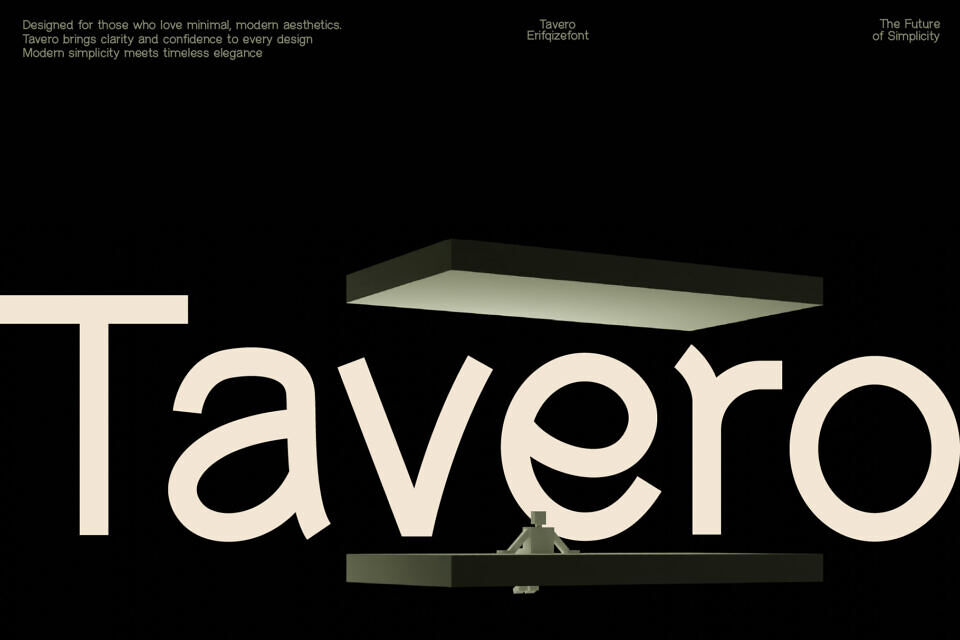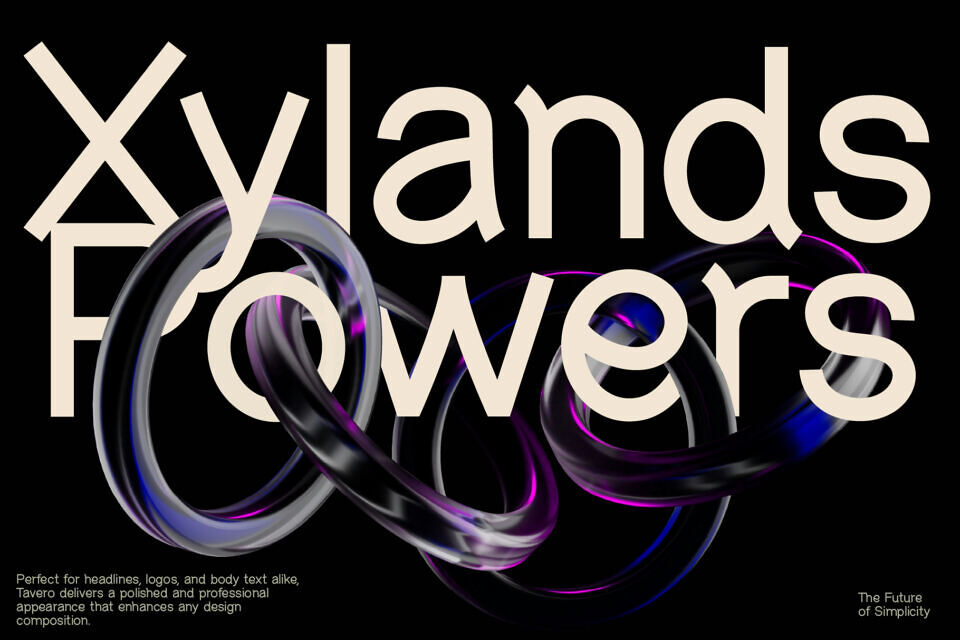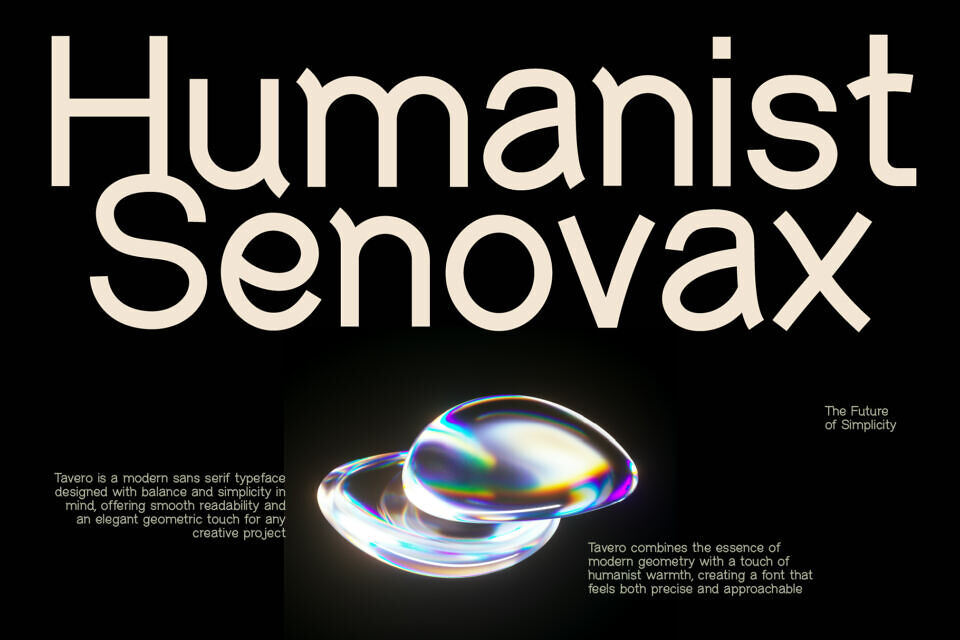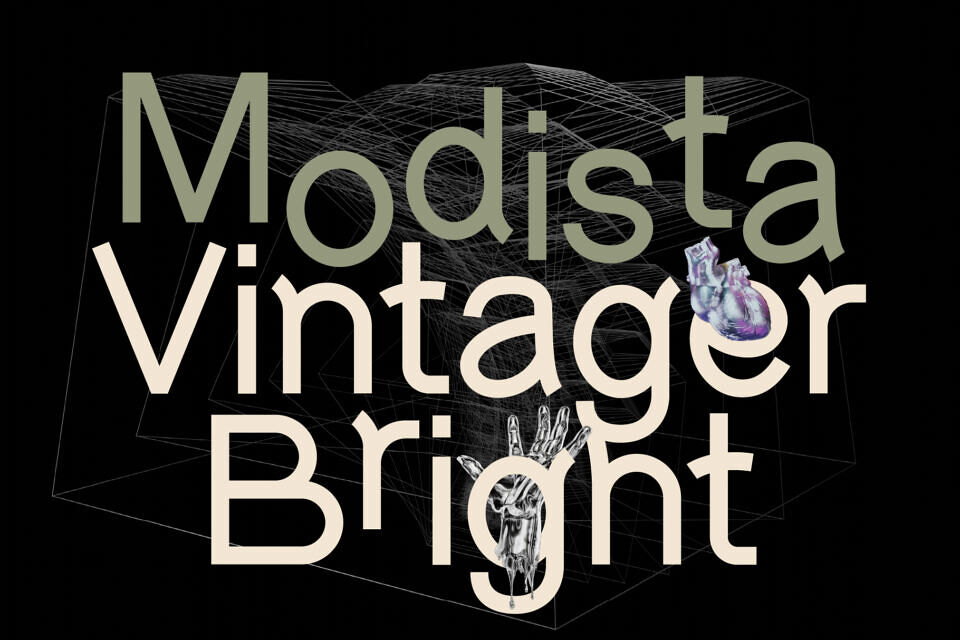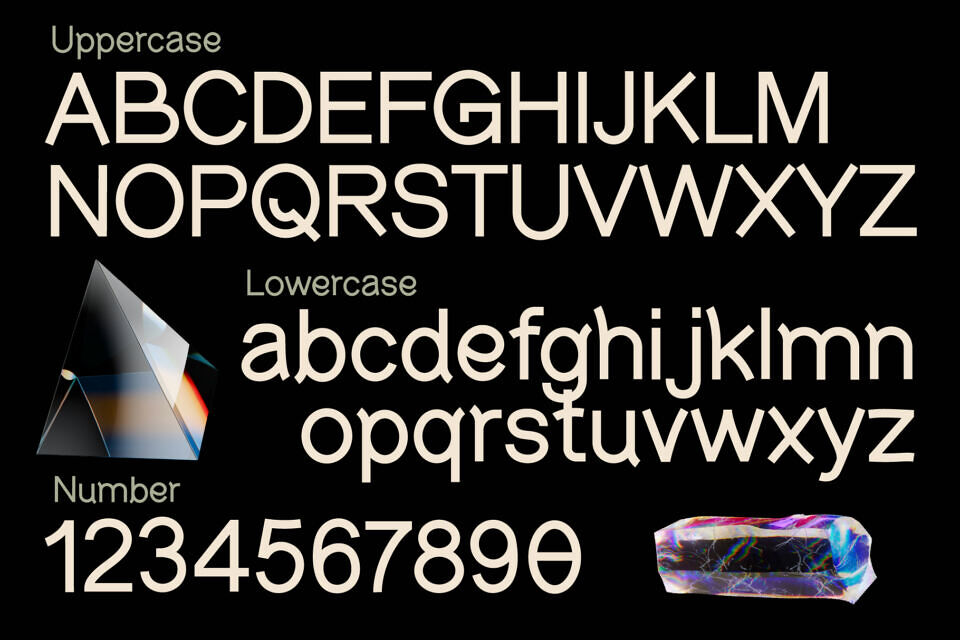
Tavero is a modern sans-serif typeface defined by minimalist geometry and refined proportions. Each letterform is crafted with a perfect balance of simplicity and elegance, evoking a sense of calm precision and futuristic clarity.